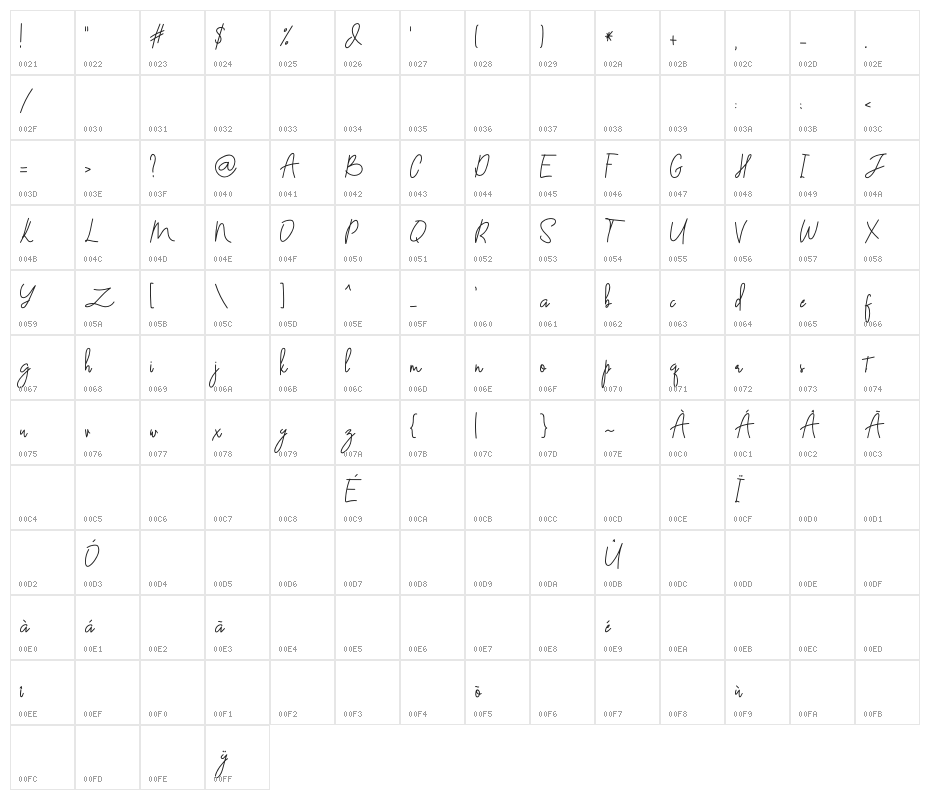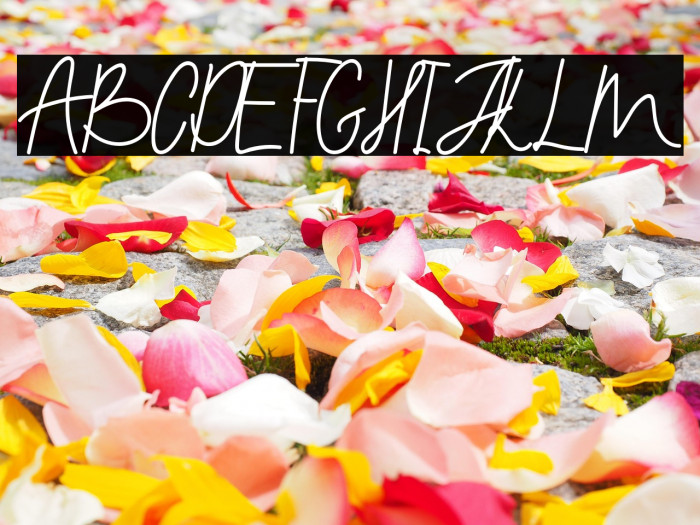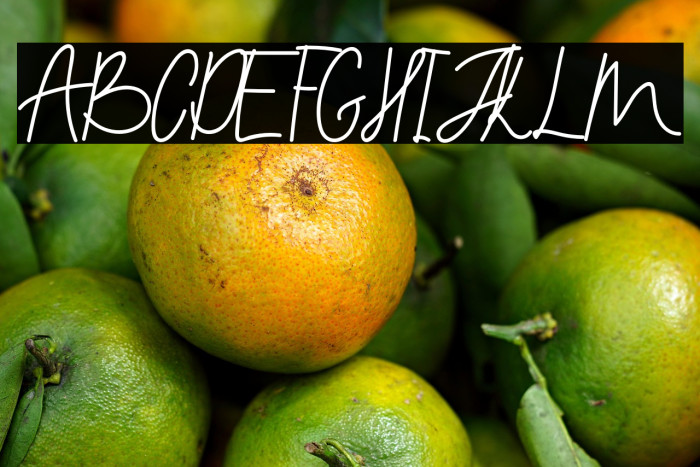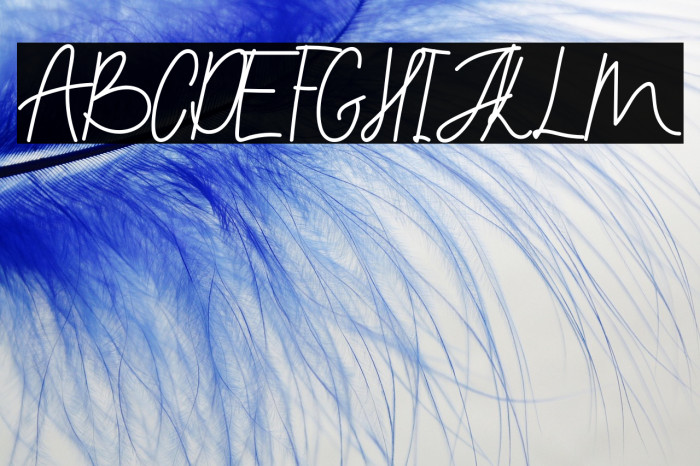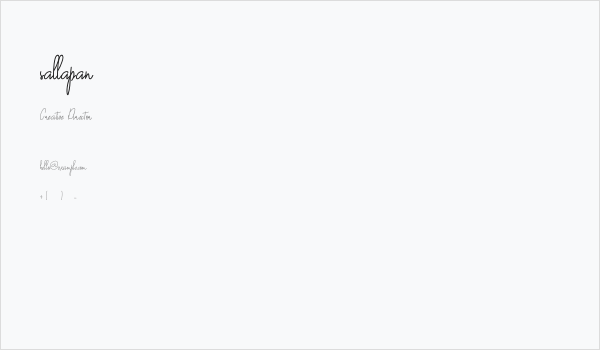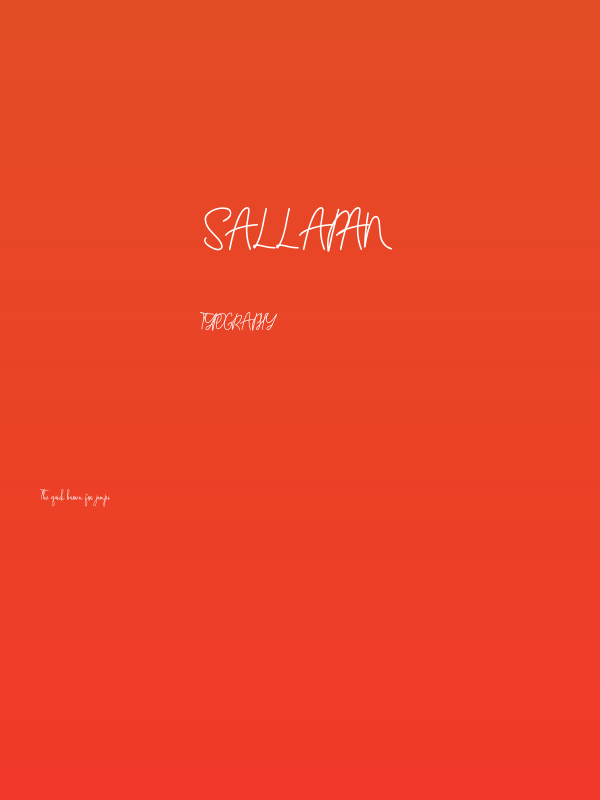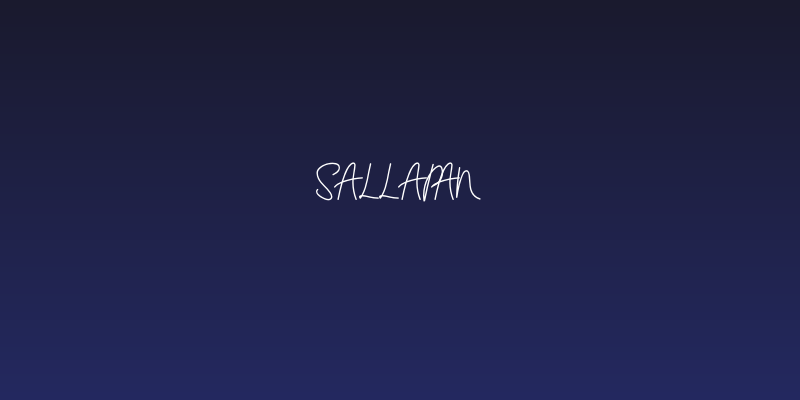
sallapan Font
sallapan Description
This font features a dynamic and fluid handwritten style, characterized by its elegant and flowing letterforms. The uppercase letters exhibit a graceful, slightly slanted appearance, while the lowercase letters maintain a consistent and harmonious flow. The strokes vary in thickness, adding a natural and organic feel to the text. The special characters complement the overall aesthetic with their unique and artistic flair. This font's playful yet sophisticated style makes it suitable for a variety of creative applications.
SALLAPAN UPPERCASE
SALLAPAN LOWERCASE
SALLAPAN OTHER CHARS